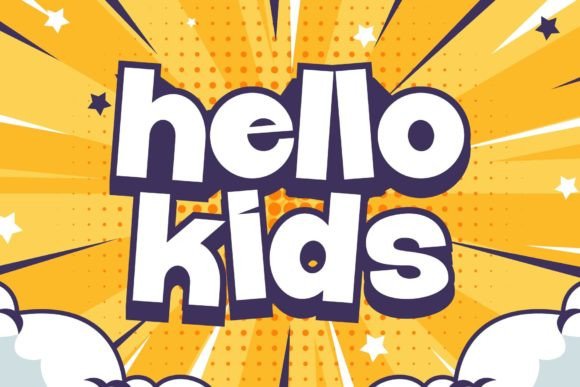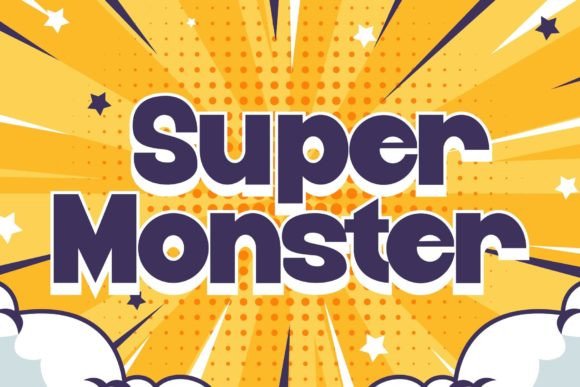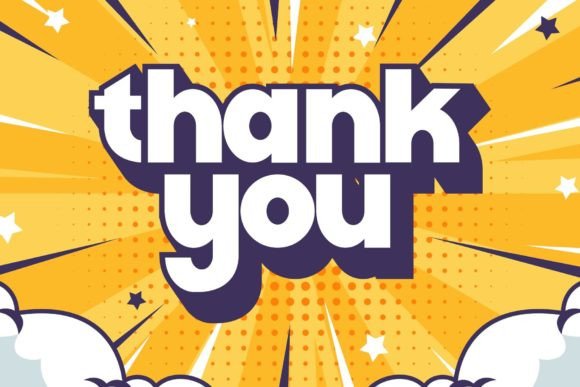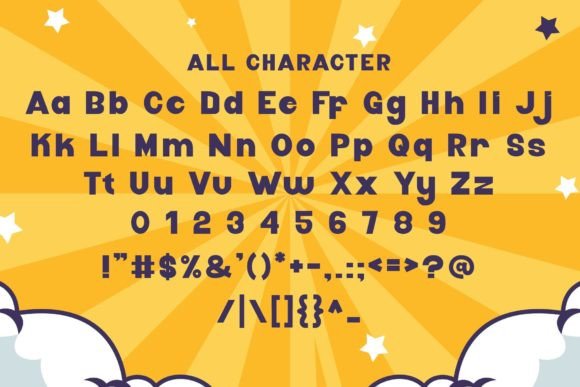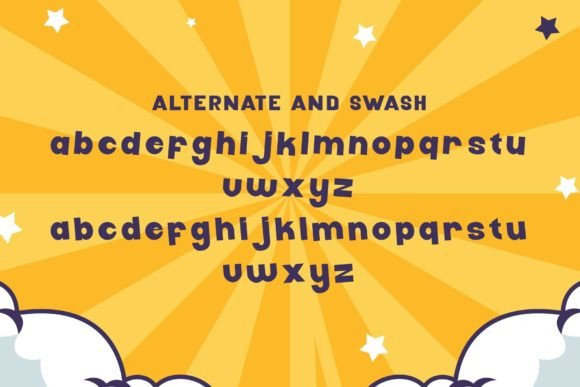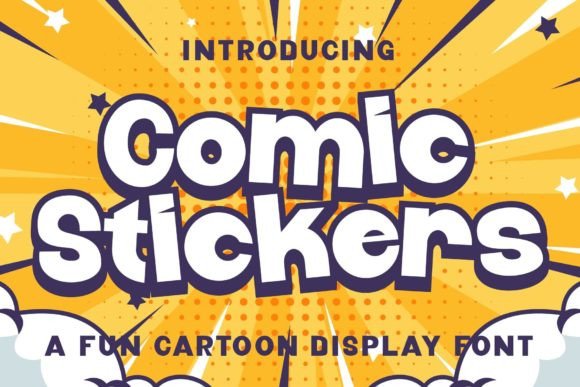
Introducing Comic Stickers Font: Add a Playful Touch to Your Designs
Are you looking for a font that can add a dash of playfulness and fun to your designs? Look no further than Comic Stickers Font, a display font inspired by the vibrant and energetic world of cartoon typography. This amazing font is guaranteed to make your designs stand out and leave a lasting impression on your audience.
What is Comic Stickers Font?
Comic Stickers Font is a carefully crafted display font that captures the essence of comic book typography. Its playful and jolly design makes it perfect for a wide range of creative projects, from book covers and children’s books to comics, posters, packaging, merchandise, and logotypes. With Comic Stickers Font, you can add a touch of whimsy and imagination to your designs, making them more engaging and fun.
Key Features of Comic Stickers Font
- Playful and energetic design: Inspired by cartoon typography, Comic Stickers Font is designed to bring a sense of fun and playfulness to your designs.
- Versatile usage: Suitable for a wide range of projects, including book covers, children’s books, comics, posters, packaging, merchandise, logotypes, and more.
- Display font: Designed to make a statement, Comic Stickers Font is perfect for headlines, titles, and other display text.
Who Can Benefit from Comic Stickers Font?
Comic Stickers Font is a versatile font that can be used by a wide range of designers and crafters, including:
- Graphic designers: Looking to add a playful touch to their designs, from book covers to posters and packaging.
- Illustrators: Creating comics, children’s books, and other illustrated materials that require a fun and energetic font.
- Crafters: Creating handmade products, such as stickers, cards, and other paper crafts, that require a playful font.
- Marketing professionals: Looking to create eye-catching promotional materials, such as flyers, brochures, and social media graphics.
- Experiment with different colors: Comic Stickers Font looks great in bright, bold colors, but it can also be used in more subtle, muted tones.
- Play with font sizes: Comic Stickers Font is designed to make a statement, so don’t be afraid to use it in large font sizes.
- Combine with other fonts: Comic Stickers Font pairs well with other fonts, so feel free to experiment with different font combinations.